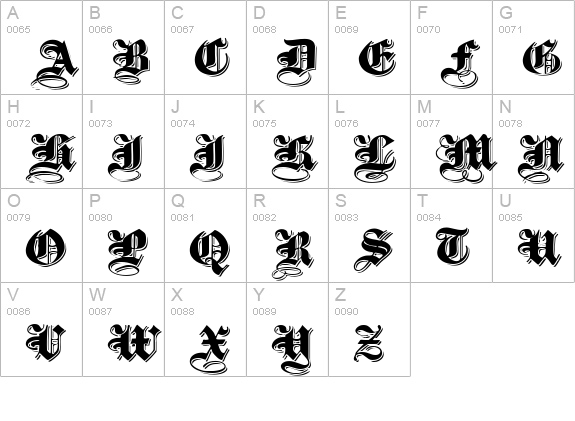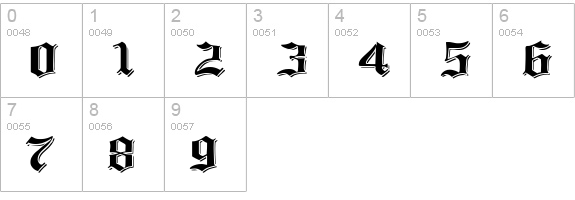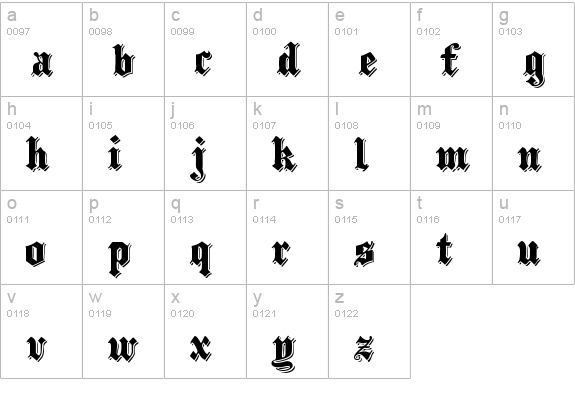
ShadowedBlackWide Normal Font Details
ShadowedBlackWide Normal is the standard, neutral variant in the ShadowedBlackWide typeface family \xE2\x80\x94 well suited to general body text, paragraphs, and standard typographic work.
ShadowedBlackWide Normal is a captivating and versatile font that adds a touch of elegance and sophistication to any design project. With its bold and striking appearance, this font is perfect for headlines, logos, posters, and any other creative endeavor that requires a strong visual impact. The unique shadowed effect of ShadowedBlackWide Normal adds depth and dimension to each letter, creating a visually stunning display. Its wide and bold strokes make a bold statement, ensuring that your message is not only seen but also remembered. This font is freely available to download at FontsMarket.com. Whether you're a professional designer or a creative enthusiast, you can easily access this font without any cost. Its high-quality design and easy readability make it a valuable asset for any project, and the fact that it is available for free makes it even more appealing. Furthermore, ShadowedBlackWide Normal is highly versatile, making it suitable for a wide range of design styles and purposes. Its bold and commanding presence makes it ideal for anything from luxury branding to eye-catching advertising campaigns. The font's clean lines and sharp edges ensure that it remains legible even at smaller sizes, allowing for flexibility in its application. In addition to its aesthetic appeal, ShadowedBlackWide Normal also offers ease of use. Compatible with various software and design applications, this font can be seamlessly integrated into your projects. Its extensive character set and punctuation marks ensure that you have all the tools you need to express your creativity and communicate your message effectively. Embrace the power of ShadowedBlackWide Normal and elevate your designs to new heights. Whether you're working on a professional project or simply looking to enhance your personal creations, this font is sure to make a lasting impression. Download it for free at FontsMarket.com and unleash your creativity today.